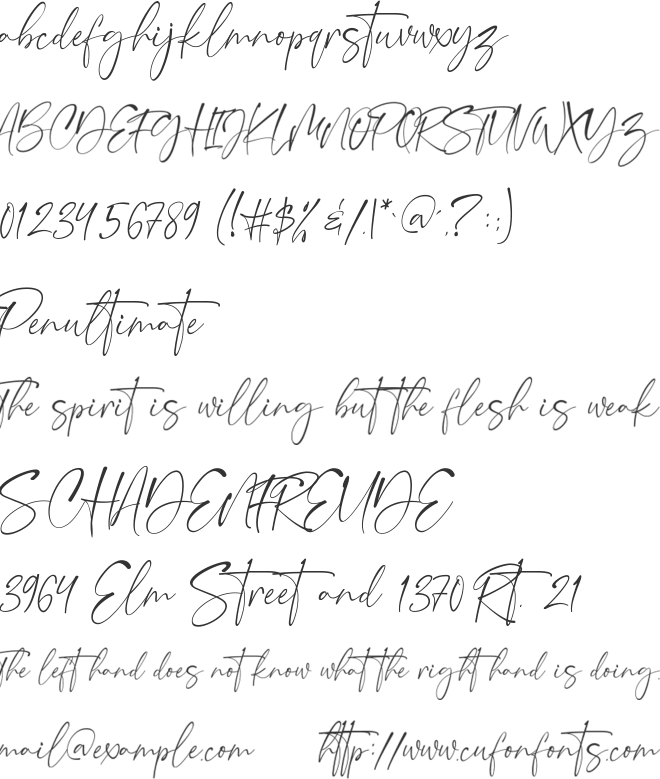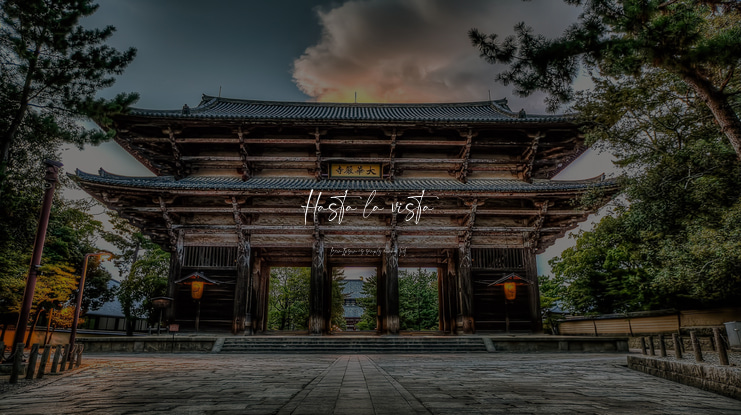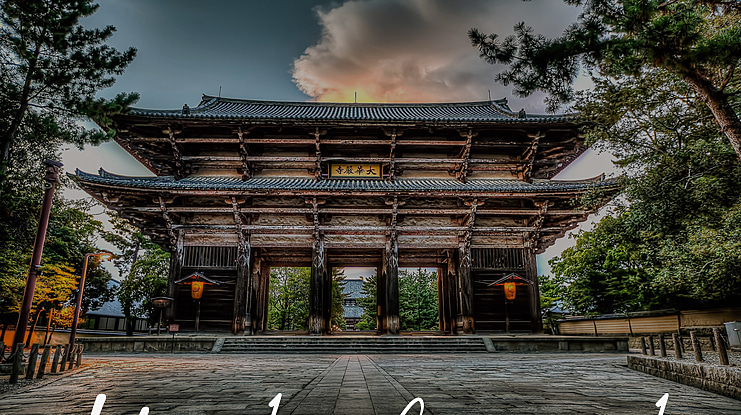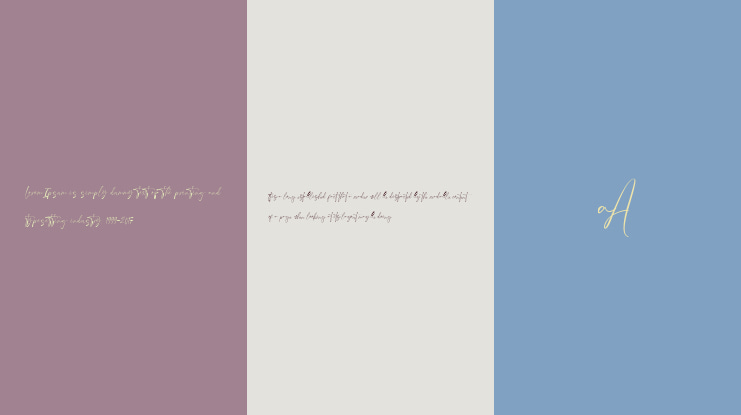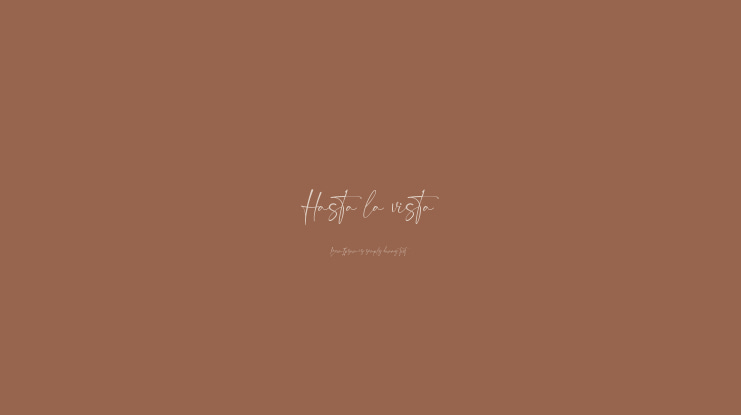
Hasta la vista Font
Introducing. The New Modern Signature Script, Hasta la Vista ! Hasta la Vista is a fashionable and elegant handwriting font . Its casual look makes it the perfect fit for signature logos, printed quotes, wedding invitation cards, social media headers, product packaging and a lot more ! Hasta la Vista have full set of uppercase and lowercase letters, multilingual symbols, numerals, punctuation, 8 beautiful ligatures, multilingual support, and have a-z alternate for last word. I think it's perfect for any project.